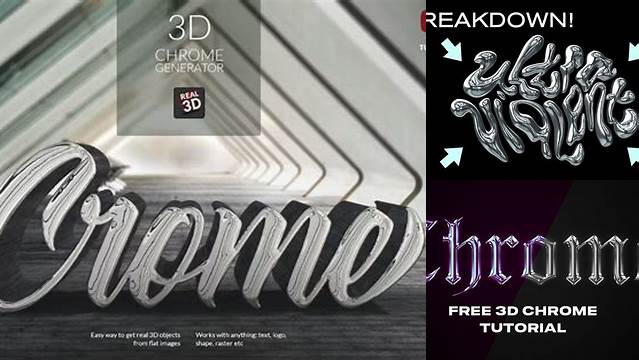
Free 3D Chrome Font Generator: Create Stunning Text
Hey guys! Are you looking to add some serious shine and pop to your designs? You've landed in the right spot! Let's dive into the dazzling world of 3D chrome fonts and explore how you can create them for free. We're going to cover everything from why these fonts are so eye-catching to where you can find the best free generators. Get ready to make your text shimmer and stand out from the crowd!
Why 3D Chrome Fonts Are a Game-Changer
So, what's the big deal about 3D chrome fonts anyway? Well, imagine your text transformed into gleaming, metallic masterpieces that seem to leap off the page. That's the magic of 3D chrome! These fonts aren't just about looking cool; they're about making a statement. Think about it β the reflective, polished surface of chrome instantly grabs attention. When you combine that with a three-dimensional effect, you get text that's visually striking and memorable.
But why does this matter for your projects? Whether you're designing a logo, creating promotional materials, or working on a website, your text is a crucial element. It's often the first thing people see, and it needs to make a strong impression. 3D chrome fonts can help you do just that. They add a touch of sophistication and modernity, making your message feel cutting-edge and professional. Plus, theyβre incredibly versatile. You can use them in a wide range of contexts, from tech-focused designs to luxury branding.
Consider the psychology at play here too. Chrome finishes are often associated with high quality, durability, and innovation. By using 3D chrome fonts, you're subtly conveying these attributes to your audience. You're telling them that your brand or message is sleek, reliable, and forward-thinking. It's a powerful way to influence perceptions and create a lasting impact.
And let's not forget the fun factor! Let's be honest, there's something inherently cool about chrome. It evokes images of classic cars, futuristic gadgets, and high-end design. When you use a 3D chrome font, you're tapping into that sense of excitement and visual appeal. It's a way to inject some personality and flair into your projects, making them more engaging and enjoyable for your audience. Whether you're working on a gaming logo, a website banner, or a social media graphic, these fonts can add that extra zing to your text.
Ultimately, the appeal of 3D chrome fonts lies in their ability to transform ordinary text into something extraordinary. They're not just a font choice; they're a design statement. If you want your message to shine, stand out, and leave a lasting impression, then exploring the world of 3D chrome is definitely worth your time.
Top Free 3D Chrome Font Generators
Alright, let's get to the good stuff β where can you actually find these awesome 3D chrome font generators without spending a dime? The internet is packed with options, but not all of them are created equal. To save you some time and effort, I've rounded up some of the top free generators that are worth checking out. These tools are user-friendly, offer a range of customization options, and, most importantly, deliver stunning results. Let's jump in!
First up, we have FlamingText. This is a super popular online tool that's known for its ease of use and impressive results. FlamingText has a huge library of pre-designed text effects, and you can easily customize them to create your own unique 3D chrome font. You can tweak the colors, fonts, shadows, and other effects to get exactly the look you want. Plus, the interface is really intuitive, so even if you're not a design pro, you'll be able to create something awesome in no time. The best part? It's completely free to use for basic designs, making it a fantastic option for personal projects or quick mockups.
Next on the list is Renderpix. This online generator is another gem for creating eye-catching 3D chrome fonts. Renderpix stands out because it offers a wide array of chrome styles, from sleek and modern to vintage and grungy. You can play around with different textures and reflections to achieve a truly unique look. Like FlamingText, Renderpix is also very user-friendly. You simply type in your text, choose your desired style, and tweak the settings until you're happy with the result. And yes, it's free for basic use, which is a huge win!
Another solid choice is Cool Text. Don't let the slightly retro name fool you β this website is a powerhouse for generating cool text effects, including 3D chrome. Cool Text has been around for a while, and it's built a reputation for being reliable and versatile. It offers a ton of different font styles and customization options, so you can really get creative with your designs. The interface is straightforward and easy to navigate, making it a great option for both beginners and experienced designers. And, of course, it's free to use for most features, which is always a plus.
If you're looking for something a little different, you might want to check out Online Text Effects. This site has a slightly more modern feel than some of the others, and it offers a unique selection of 3D chrome effects. One of the things I love about Online Text Effects is that it allows you to preview your text in real-time, so you can see exactly how it will look before you download it. This can save you a lot of time and hassle. And, you guessed it, it's free to use for basic designs.
So, what are you waiting for? It's time to unleash your creativity and start designing with free 3D chrome fonts! Whether you're a seasoned designer or just a beginner, these tools and techniques can help you create stunning visuals that will capture attention and leave a lasting impression. Remember to experiment, have fun, and let your imagination run wild. The world of 3D chrome is waiting β go out there and make it shine!